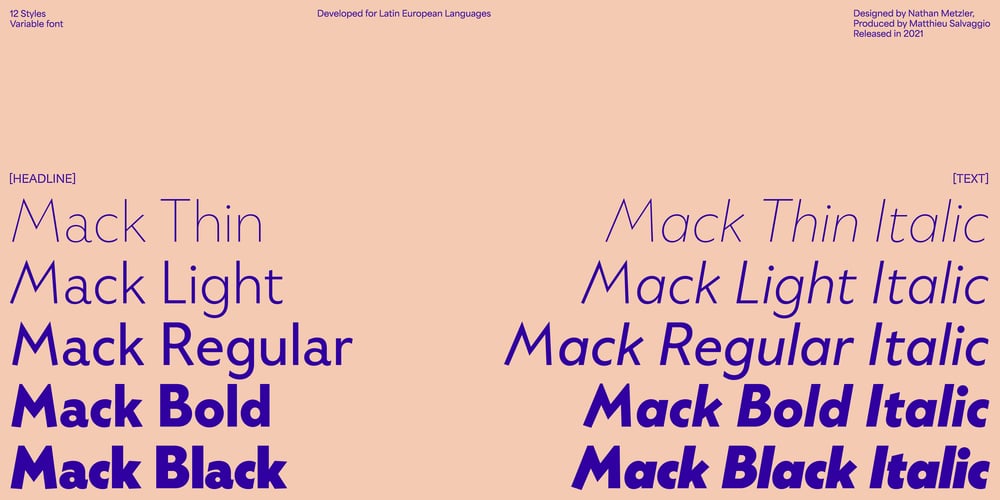
Mack VF Font Family was designed by Nathan Metzler and published by Blaze Type. Mack VF contains 1 styles and family package options. Mack is a humanist sans serif inspired by the natural, brush-made variations of details originally rooted in geometry. The spark for the creation of Mack came from lettering on a map of Mackinac Island whose angled terminals, pointed peaks, and variation of proportion were all details that set it apart from the strictly geometric forms it appears to reference. Rather than copying the few letters there and extrapolating them into a whole font, Mack is an original sans serif design following similar principles. Its structure and contrast resemble those of mid-century geometric typefaces while its curves and terminals are angled to emulate the stroke of a brush.